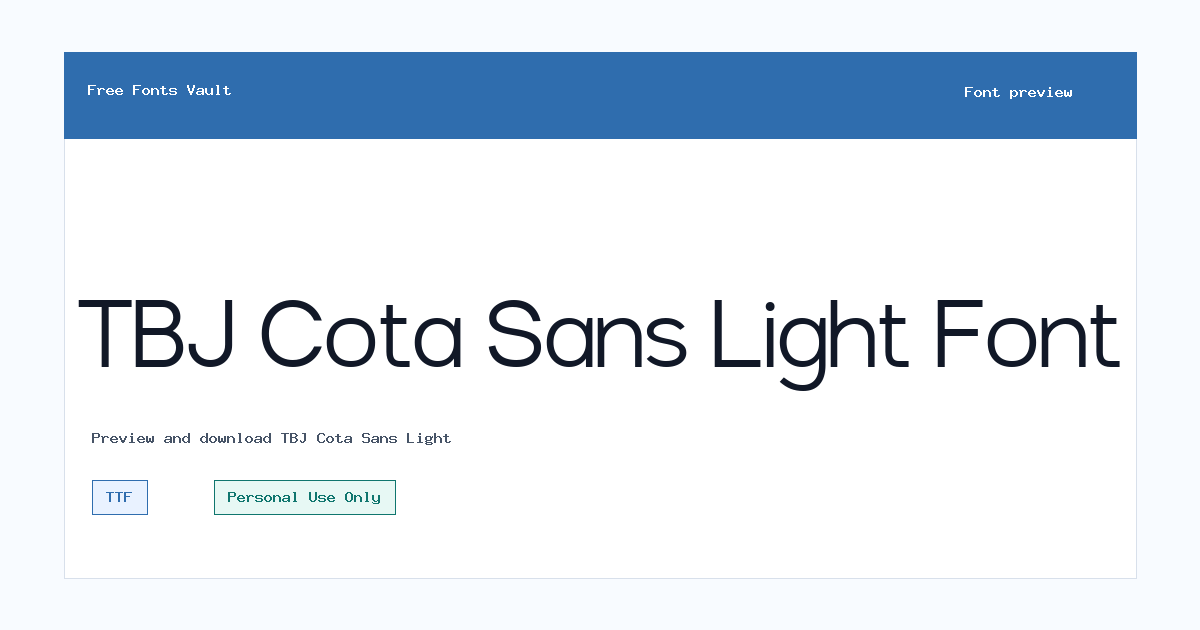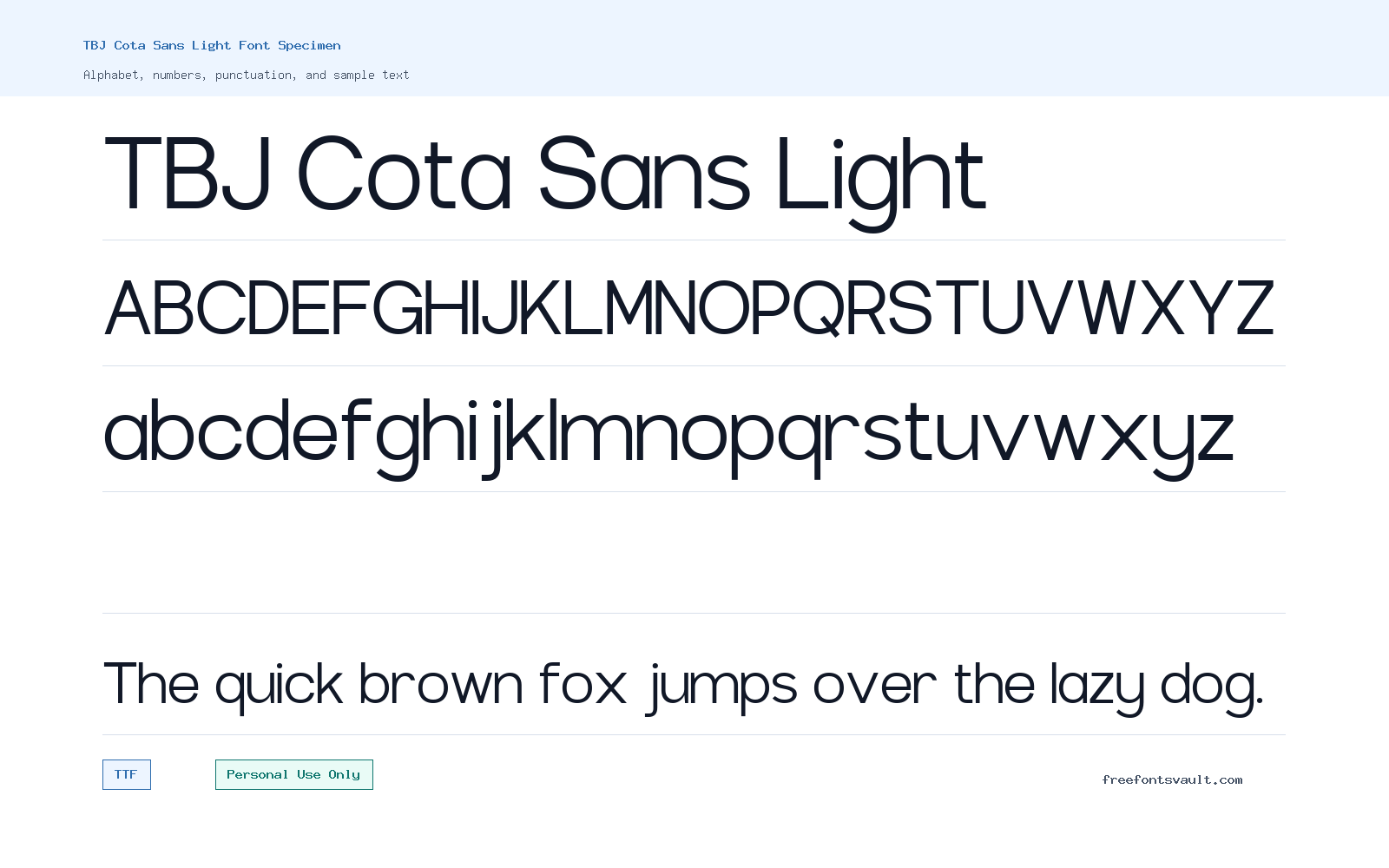
TBJ Cota Sans Light
- Designer Yusilo Oktaprima Ardani Taboja Studio
- Foundry Taboja Studio
TBJ Cota Sans Light font.
TBJ Cota Sans Light is a light-weight sans serif font with a clean, understated feel. It is best approached as a personal-use display and layout font for testing refined headlines, simple branding ideas, posters, and web mockups.
About TBJ Cota Sans Light
TBJ Cota Sans Light uses a thin, modern sans serif style that works well when you want text to feel neat without becoming too heavy on the page. The available style is light, with a normal upright form and a 300 weight, so it is more suitable for titles, short labels, navigation concepts, and elegant display text than for dense reading. Because the design is light, it can look crisp in larger sizes, especially where there is enough spacing around the letters. In smaller text, very thin strokes may lose clarity, so it is worth testing body-size paragraphs carefully before using it in a full layout.
For designers, TBJ Cota Sans Light can be useful in early logo sketches, minimalist poster layouts, social graphics, packaging mockups, and website hero sections. It can give a layout a quiet, polished tone without pulling too much attention away from imagery or color. Try it for short words, brand initials, product names, headings, menu items, or clean editorial titles. If you are using it in logo work, test the mark at several sizes and on both light and dark backgrounds, because thin sans serif lettering can behave differently once exported, printed, or compressed for screens.
Pairing TBJ Cota Sans Light works best when the supporting font gives the design more structure. For body copy, choose a readable sans serif or serif with stronger stroke weight so the page does not feel too fragile. A regular-weight grotesque, humanist sans, or classic serif can balance the thin headline style. Avoid pairing it with another very thin display font unless the whole design is intentionally delicate, because too many light styles can reduce contrast and make the hierarchy unclear.
- Light 300-weight sans serif style for clean headings, short display text, and refined mockups.
- Simple sans serif appearance that can pair with stronger body fonts for clearer hierarchy.
- Minimal logo drafts and brand-name explorations
- Poster titles, social media graphics, and clean editorial headings
- Website hero text, menu labels, and interface mockups
- Packaging concepts, lookbooks, and presentation layouts
- Short display text where a light sans serif tone is preferred
TBJ Cota Sans Light is credited to Yusilo Oktaprima Ardani Taboja Studio, with Taboja Studio listed as the foundry.
What weight is this font?
The listed style is a light weight, marked as 300, with a normal upright style.
Is TBJ Cota Sans Light good for body text?
It is better suited to headings, short labels, and display use. Because it is light, long paragraphs or very small sizes may be harder to read.
What fonts pair well with TBJ Cota Sans Light?
Pair it with a stronger regular-weight sans serif or a readable serif for body text. This gives the layout better contrast and keeps longer reading sections clearer.